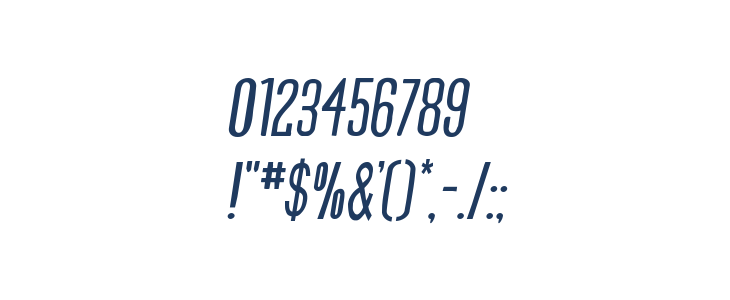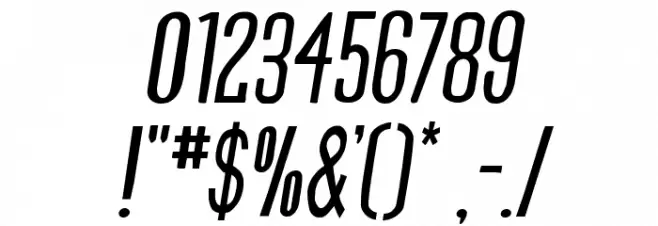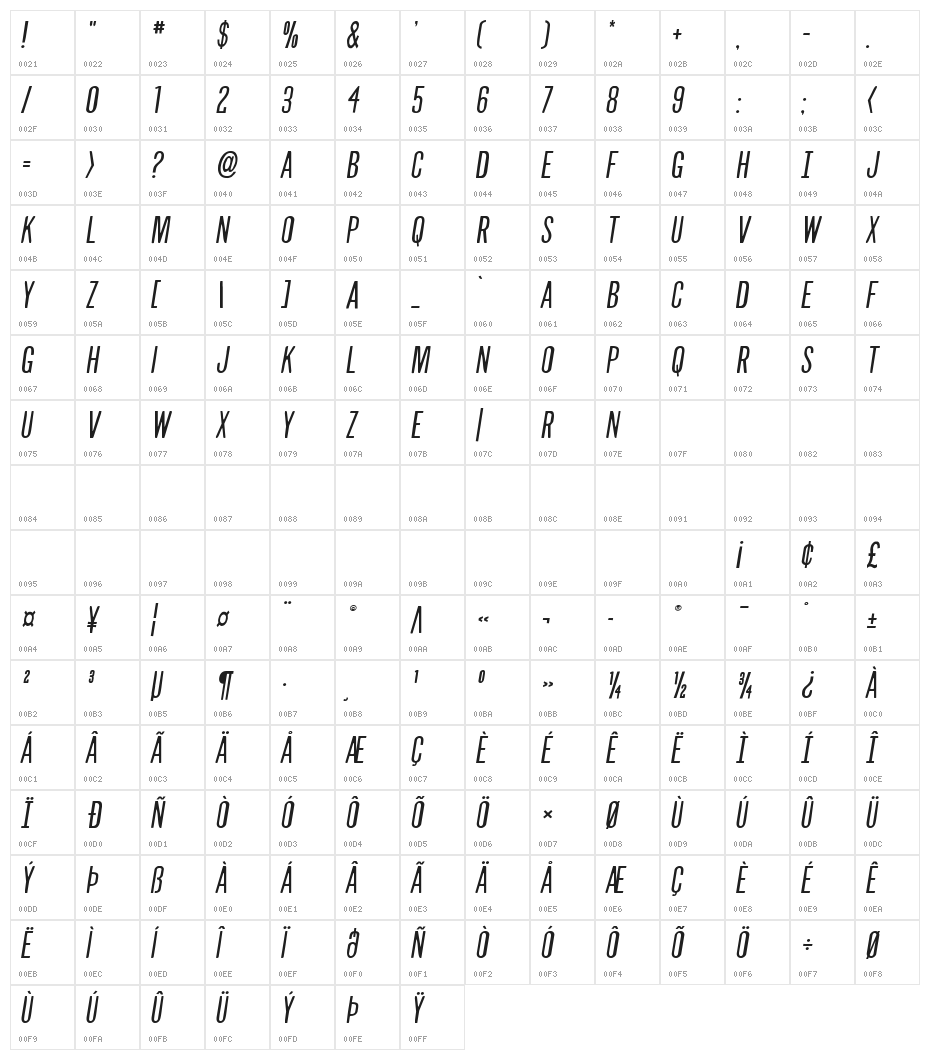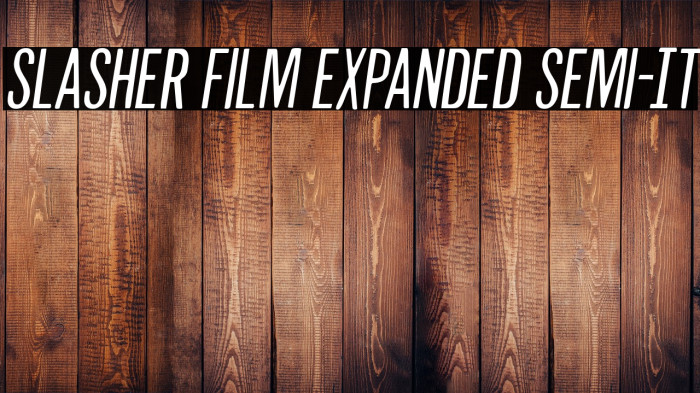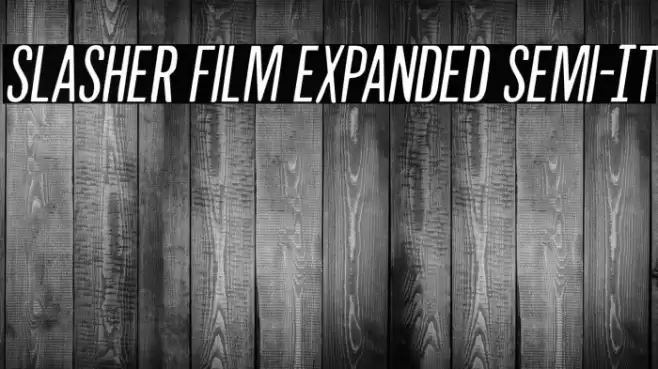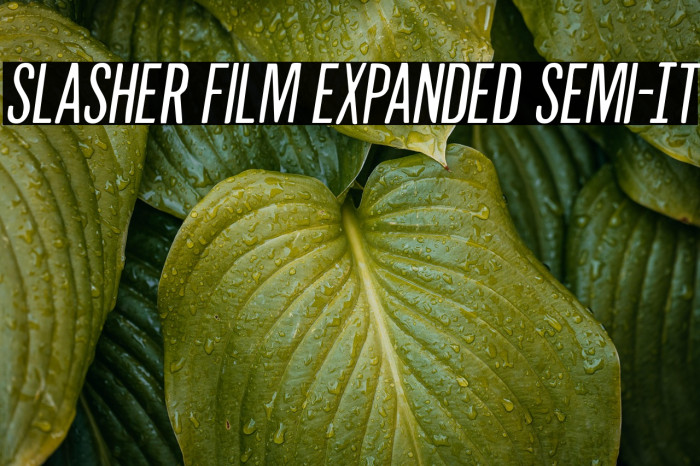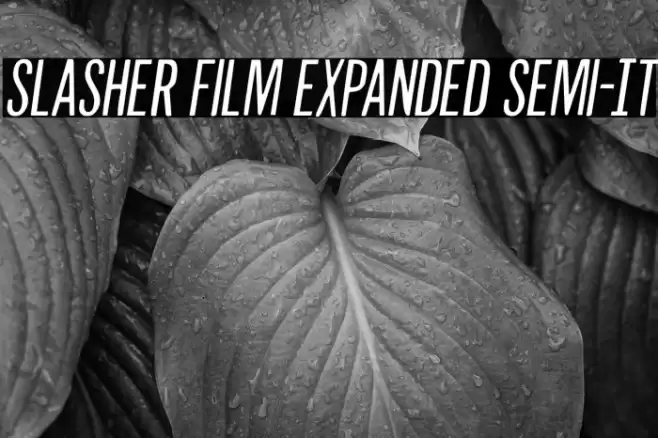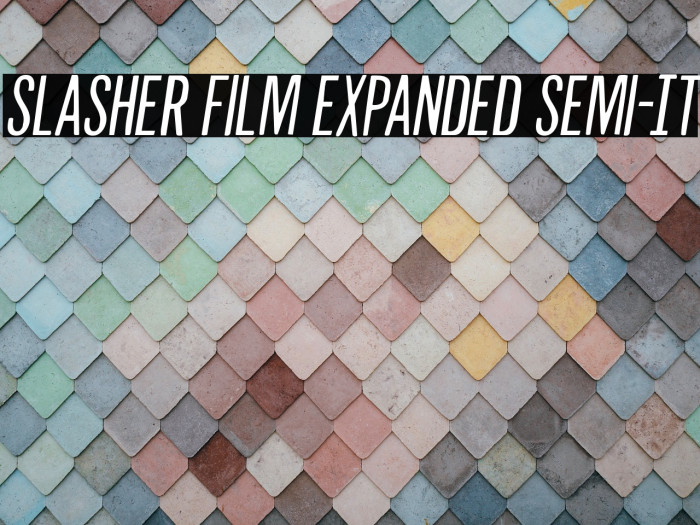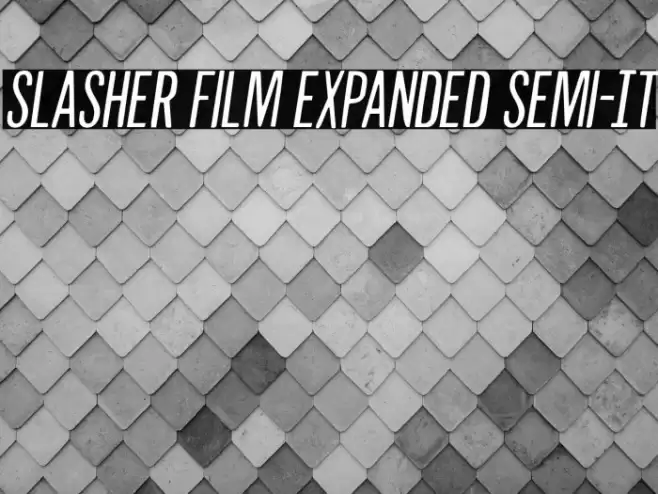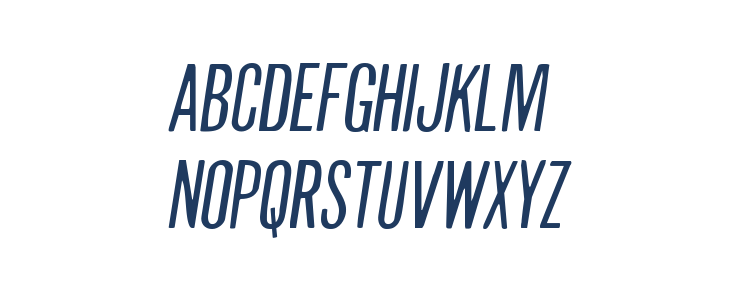
Slasher Film Expanded Semi-It Font
Slasher Film Expanded Semi-It Description
This font features a bold and dynamic style with an expanded width and a semi-italic slant, giving it a sense of movement and urgency. The characters are tall and slightly condensed, with a consistent stroke width that maintains readability while adding a touch of drama. The uppercase and lowercase letters are well-balanced, and the numerals are clear and distinct. Special characters are included, enhancing its versatility. The overall design is modern and edgy, making it suitable for projects that require a strong visual impact.